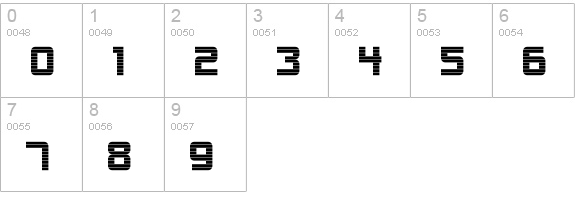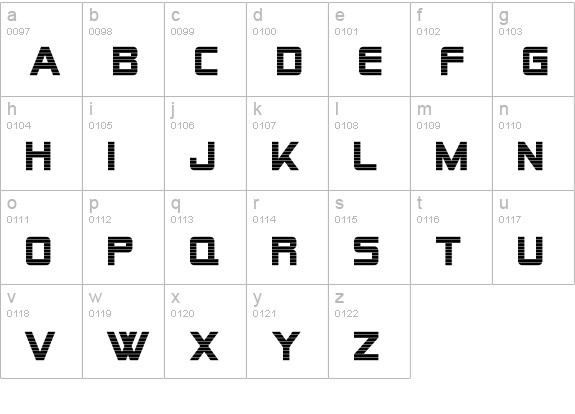
Alien Encounters Bold Font Details
Alien Encounters Bold is a strong, high-contrast variant in the Alien typeface family \xE2\x80\x94 well suited to headlines, attention-grabbing titles, and strong calls-to-action.
Alien Encounters Bold font is a futuristic and otherworldly typeface that will transport your designs to a whole new dimension. With its bold and striking appearance, this font is perfect for capturing the essence of outer space adventures, science fiction themes, and extraterrestrial encounters. The sleek and modern design of Alien Encounters Bold will make your projects stand out and grab attention. What's even better is that Alien Encounters Bold font is available for free download at FontsMarket.com. So, you can easily add this unique and captivating font to your collection without any cost. Don't miss out on the opportunity to enhance your designs with the otherworldly charm of Alien Encounters Bold font today!